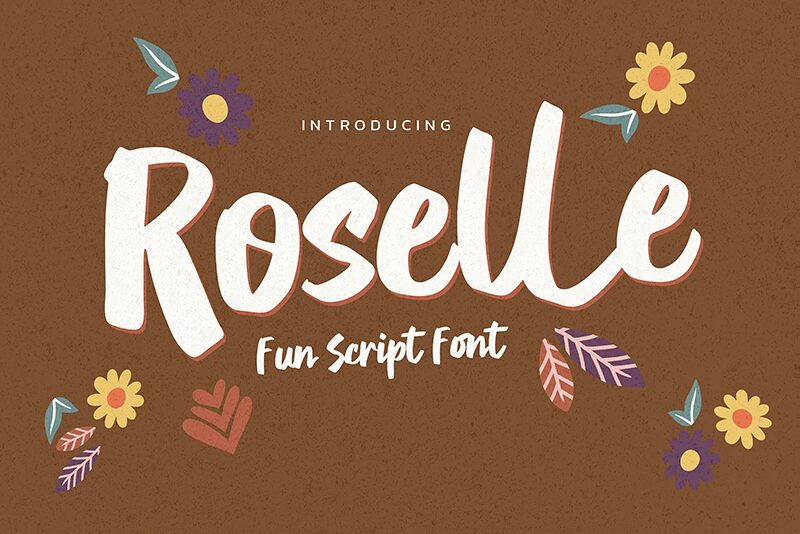
Roselle, crafted by the talented Gassstype, is a font that encapsulates the raw energy and fluidity of brush strokes with its bold weight. This typeface stands out with its dynamic, hand-painted quality that brings an authentic touch to any design project. Its thick, flowing lines convey confidence and vitality, making it an exceptional choice for creative endeavors seeking to make a strong visual statement.
The aesthetic appeal of Roselle lies in its ability to blend the expressive freedom of an artist's brush with the precision of modern typography. Each character boasts generous curves and varying widths that create a fascinating visual rhythm. The contrast between the broad strokes and delicate tips offers designers a versatile tool for crafting eye-catching headlines, impactful branding materials, or engaging promotional content.
With its robust style and brush-inspired flair, Roselle is perfectly suited for projects that require a personal touch or wish to evoke emotion through typography. Whether it's for artistic posters, stylish apparel designs, or innovative packaging solutions-Roselle promises to deliver both beauty and character to your creative vision.